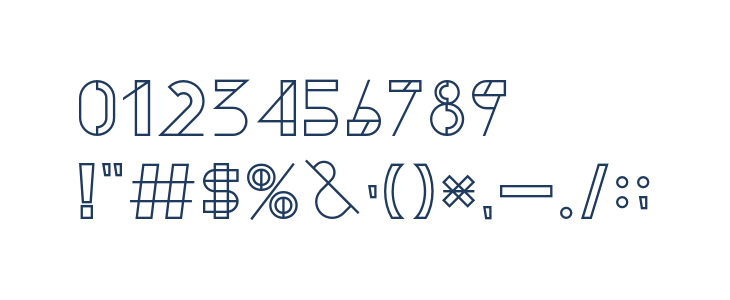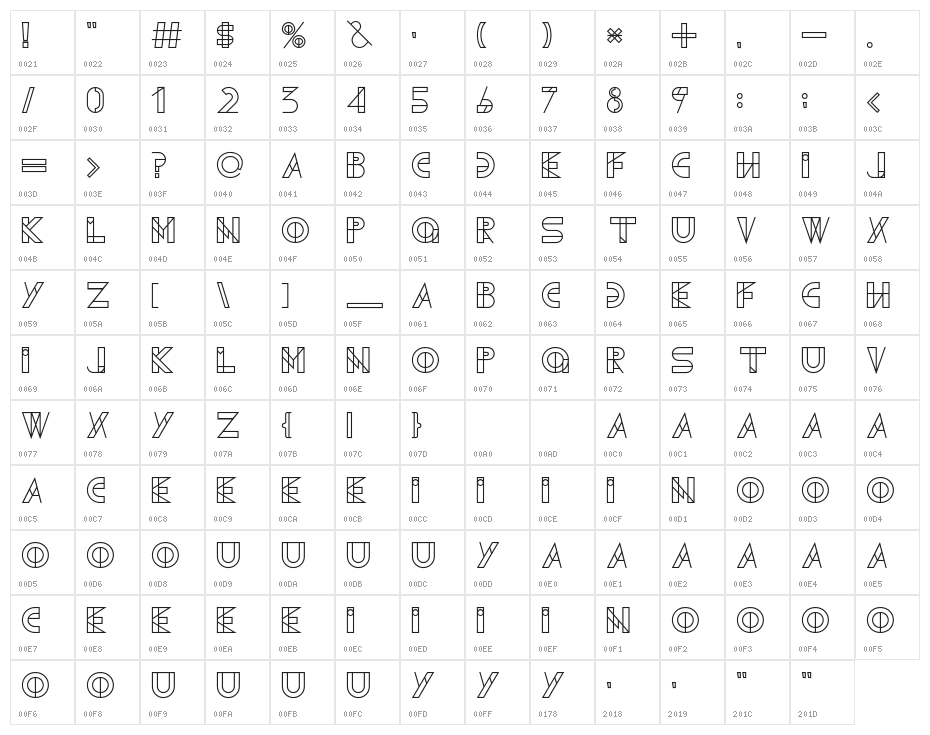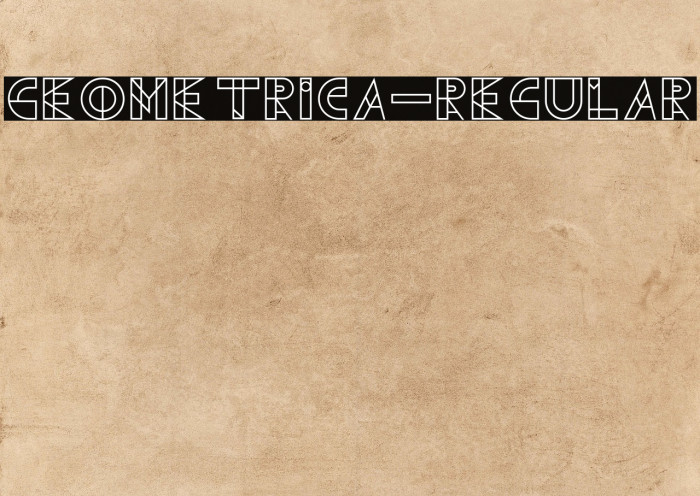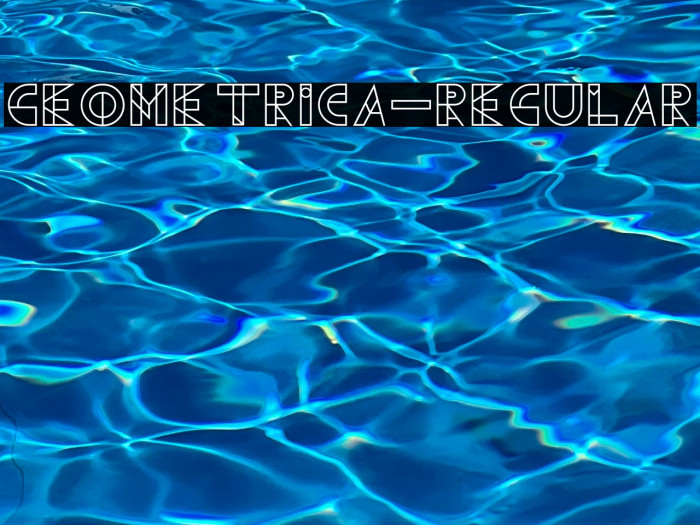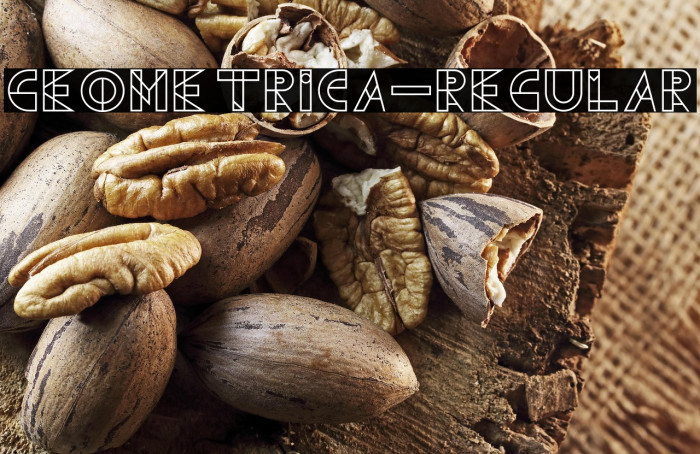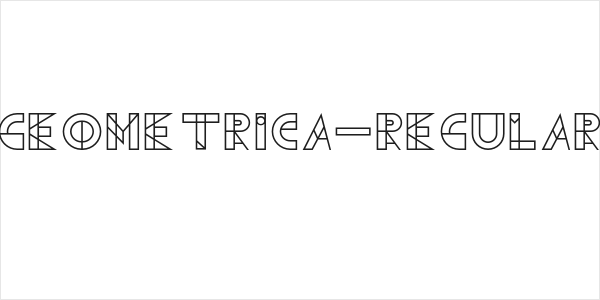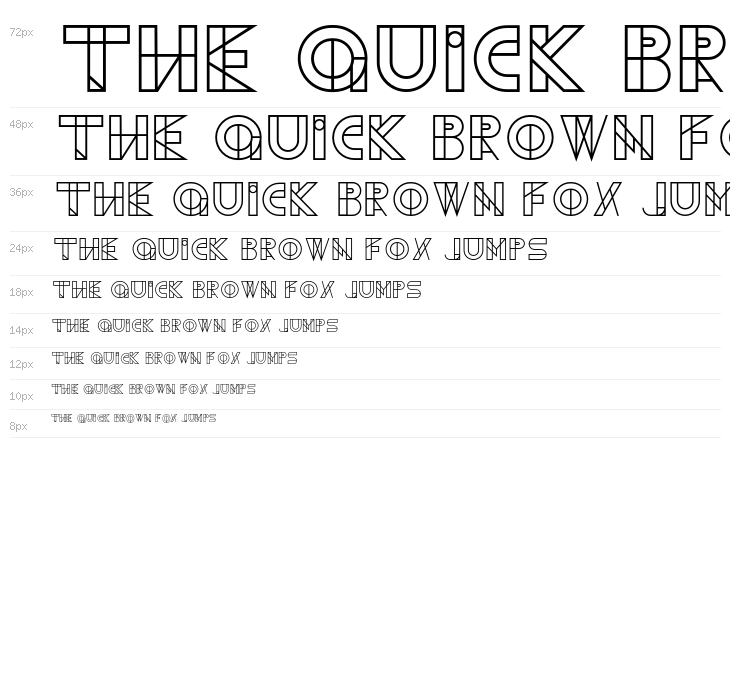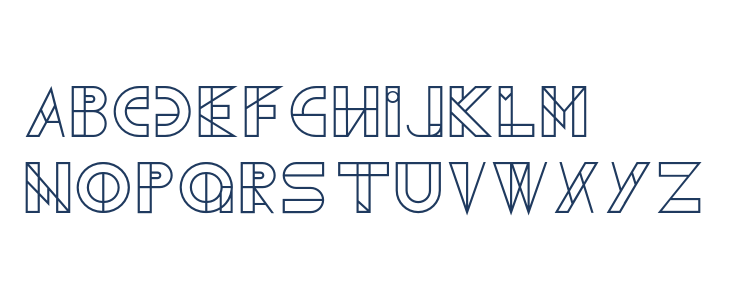
Geometrica-Regular Font
Geometrica-Regular Description
This font features a geometric and modern design with a distinct use of lines and angles. Each character is constructed with a combination of straight lines and curves, creating a unique and futuristic appearance. The uppercase letters are bold and striking, while the lowercase letters maintain a consistent style. Numbers and special characters follow the same geometric theme, ensuring a cohesive look across all elements. The font's open structure and clean lines make it highly legible, even at smaller sizes. Its innovative design is perfect for projects that require a contemporary and cutting-edge aesthetic.
| Use Case | Logos, Headlines, Posters |
| Proposed Projects | Ideal for branding, tech-related designs, modern advertising, and digital media. |